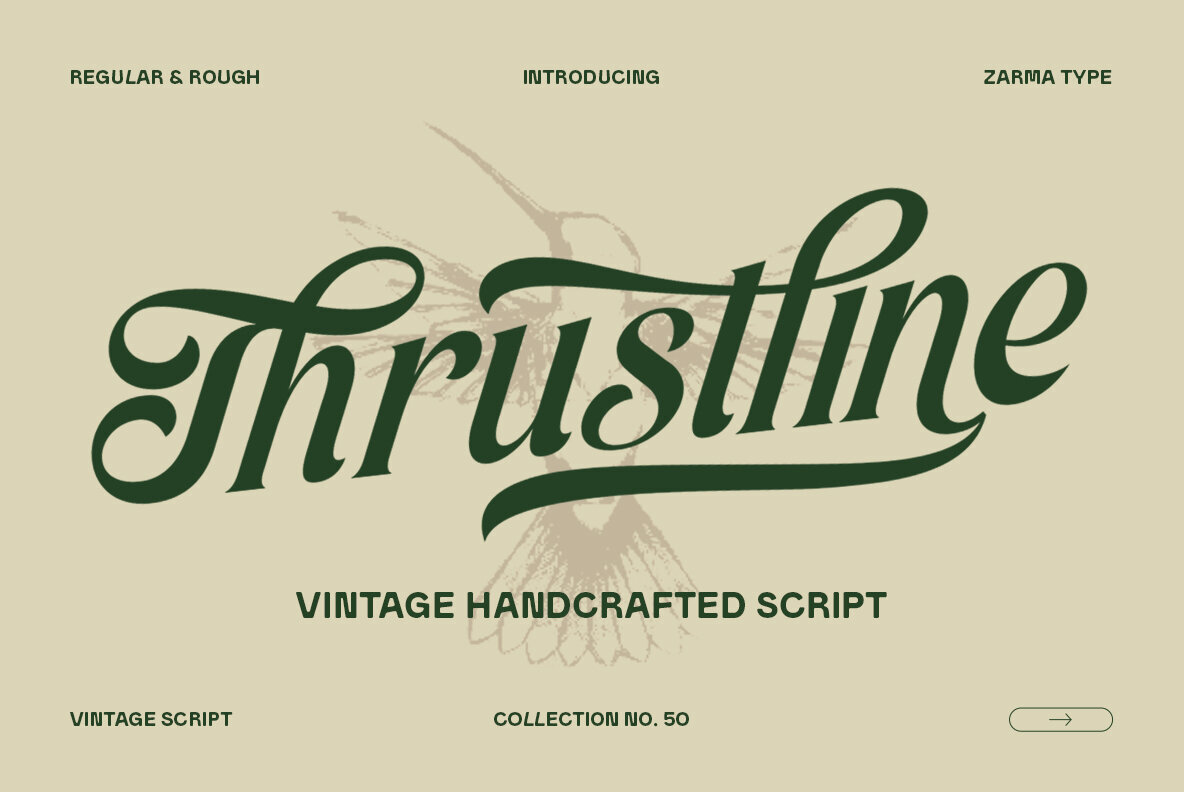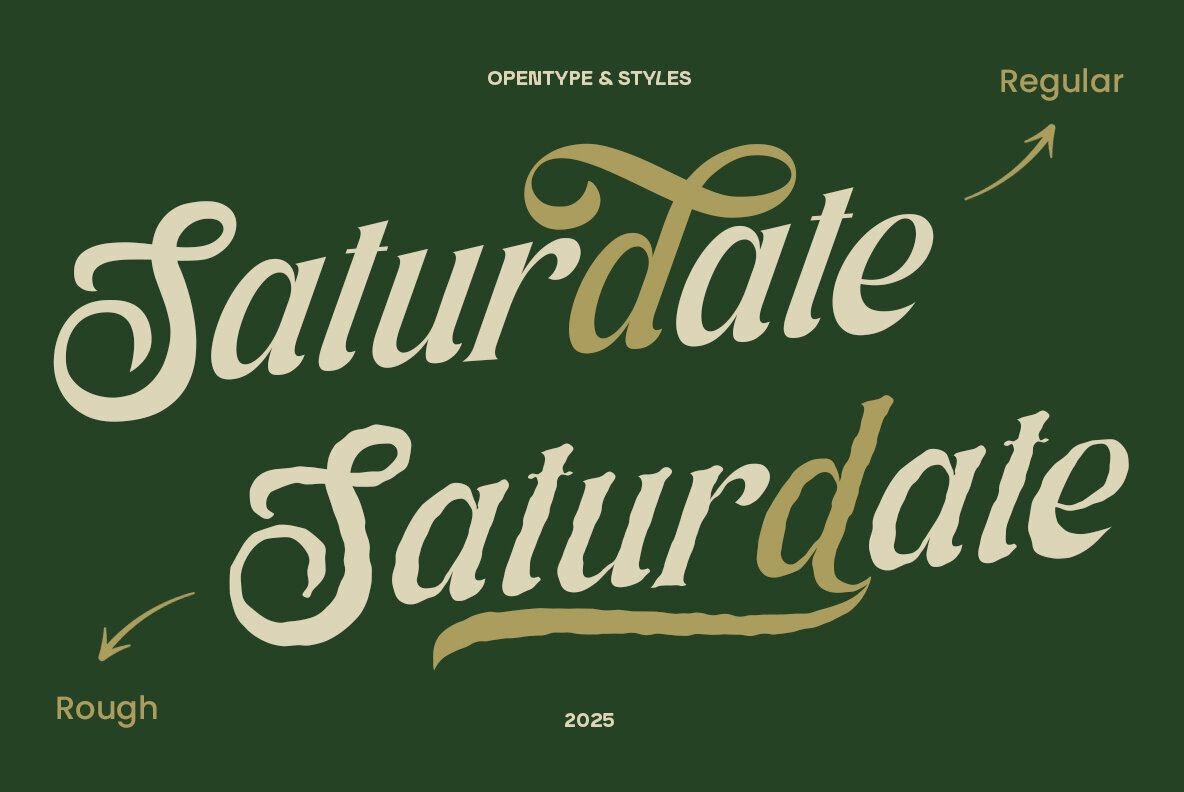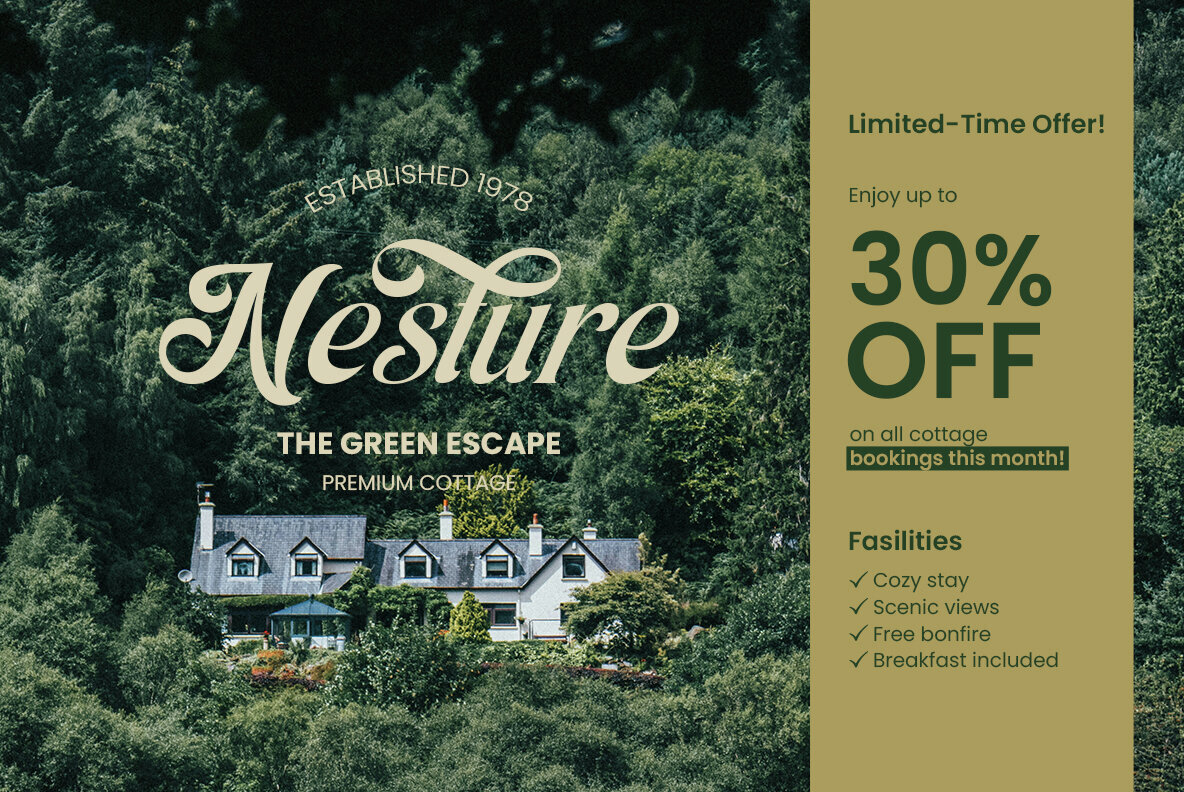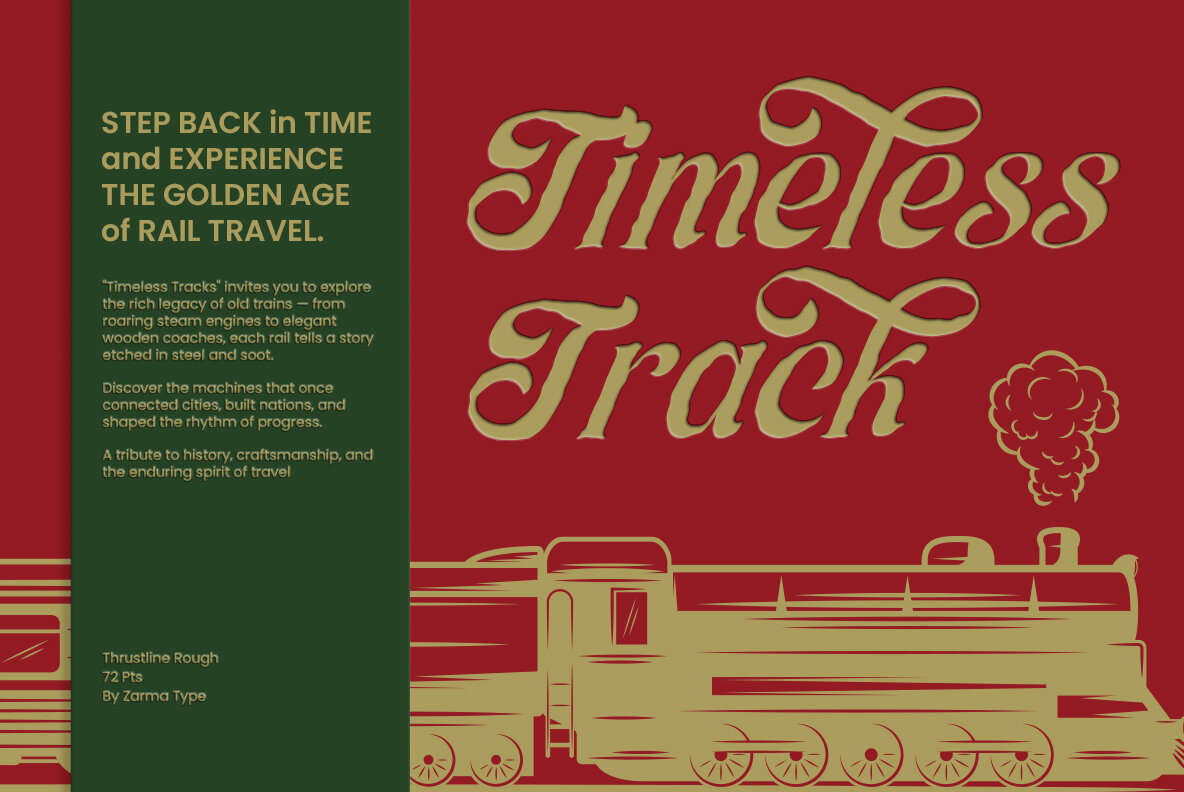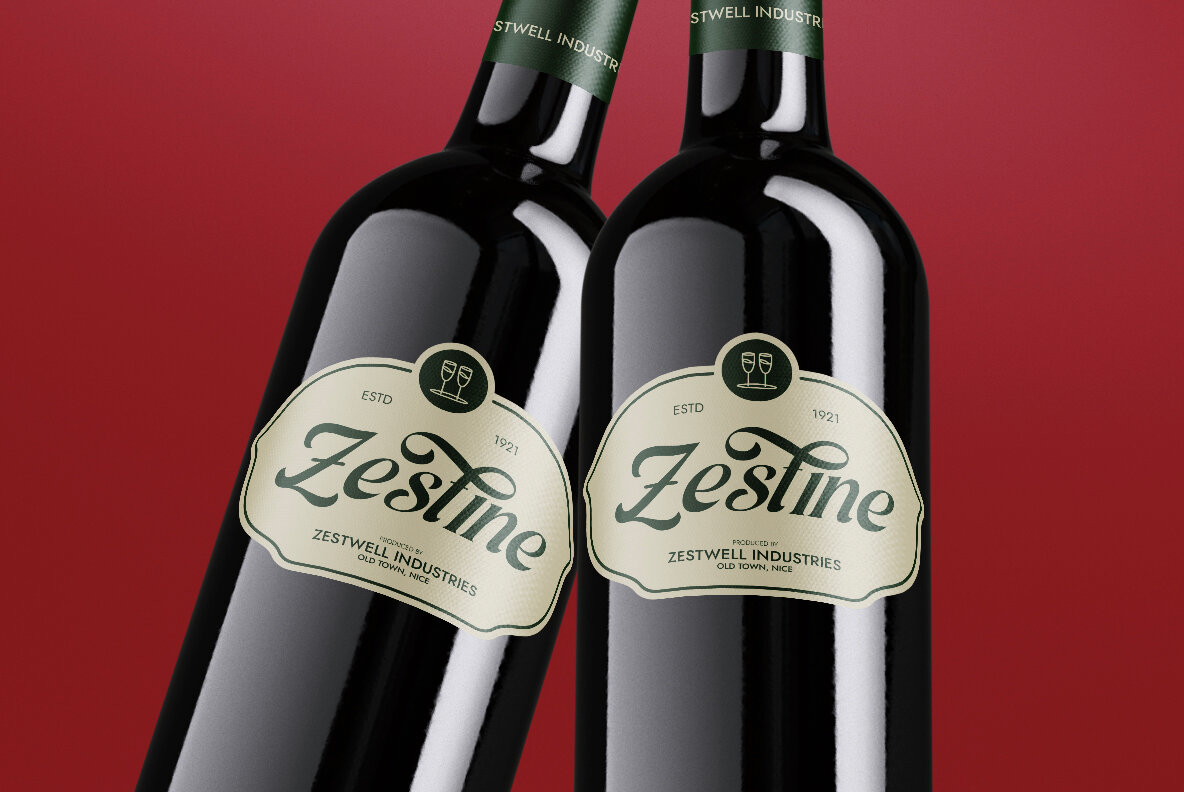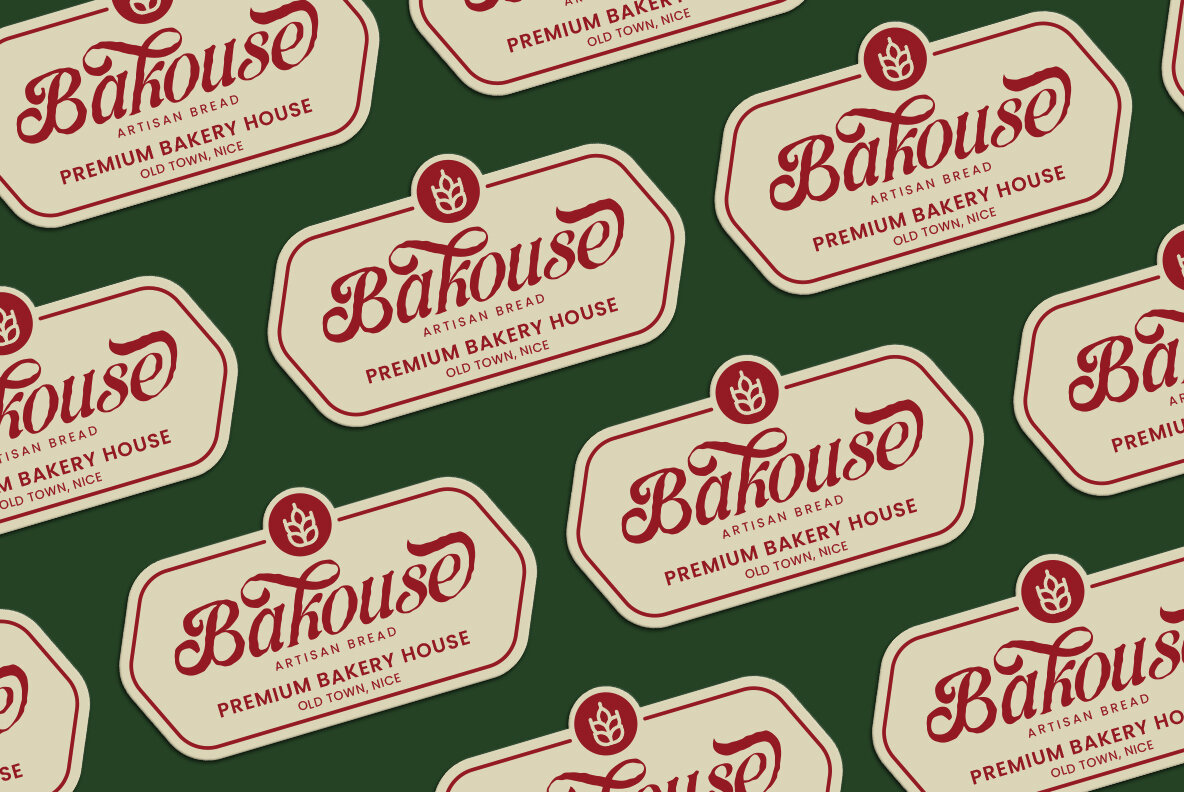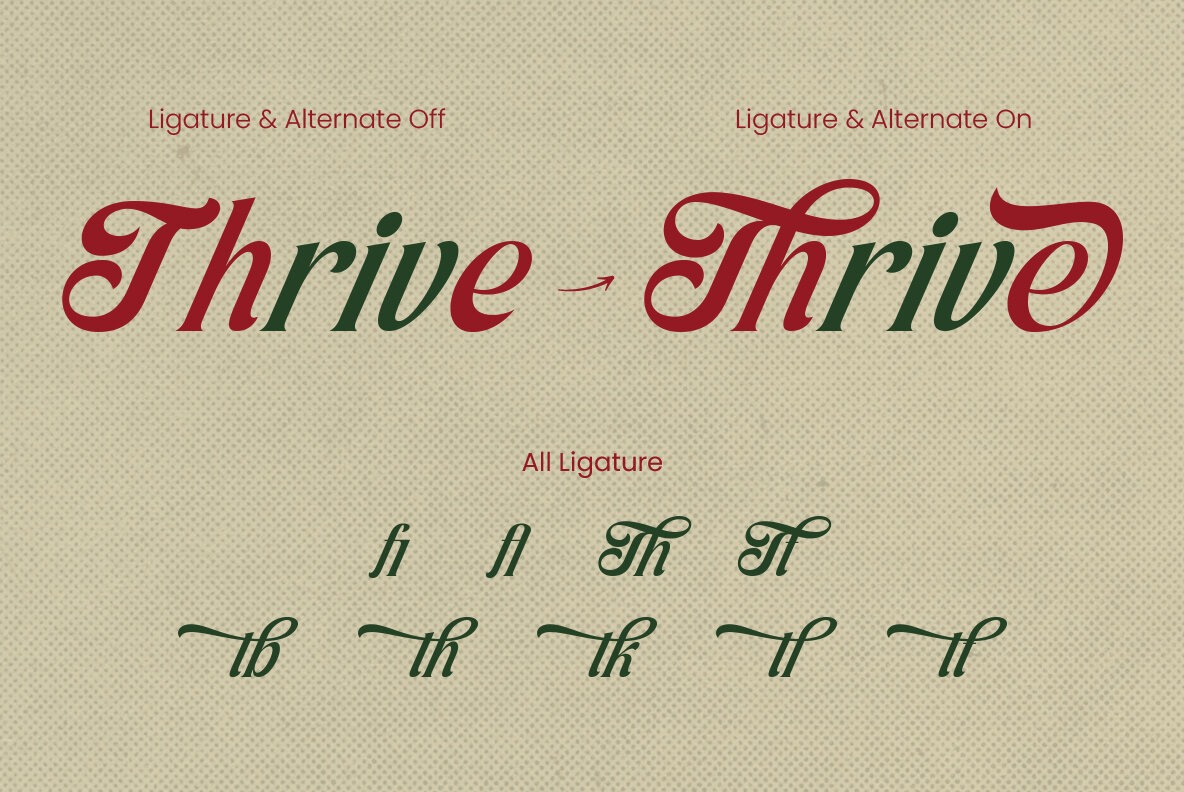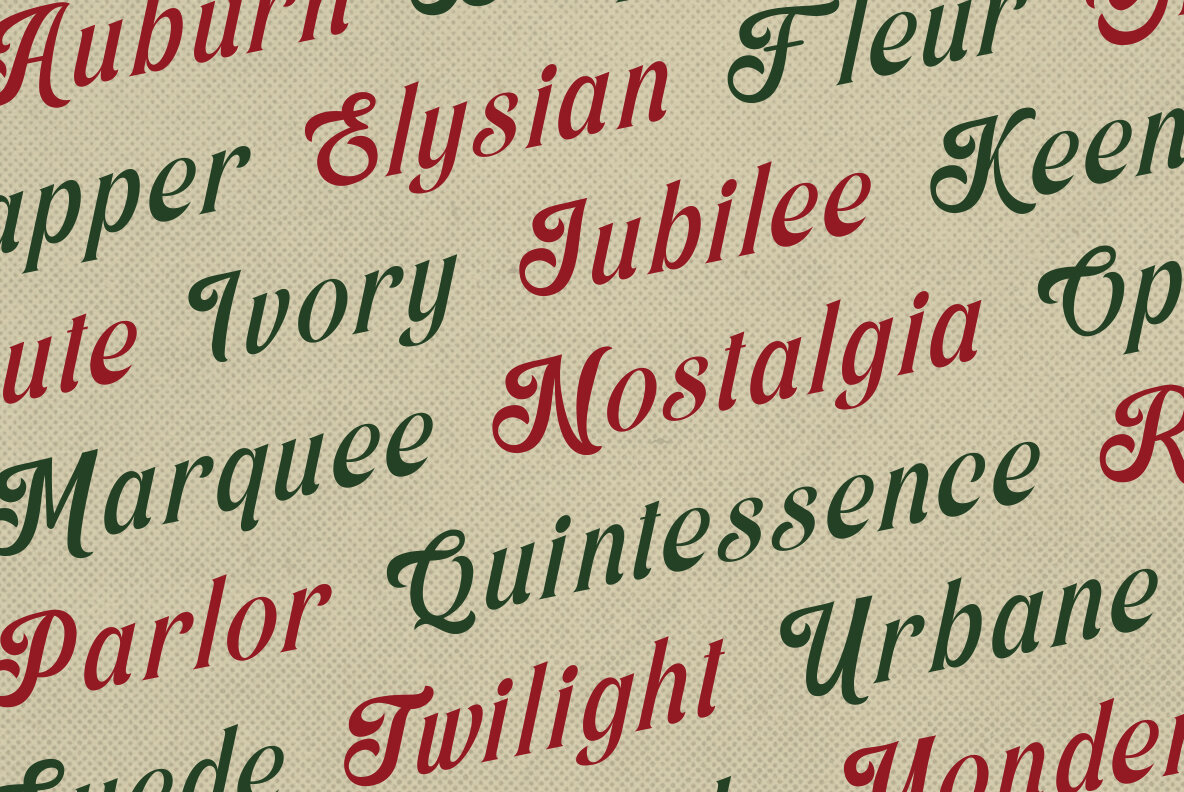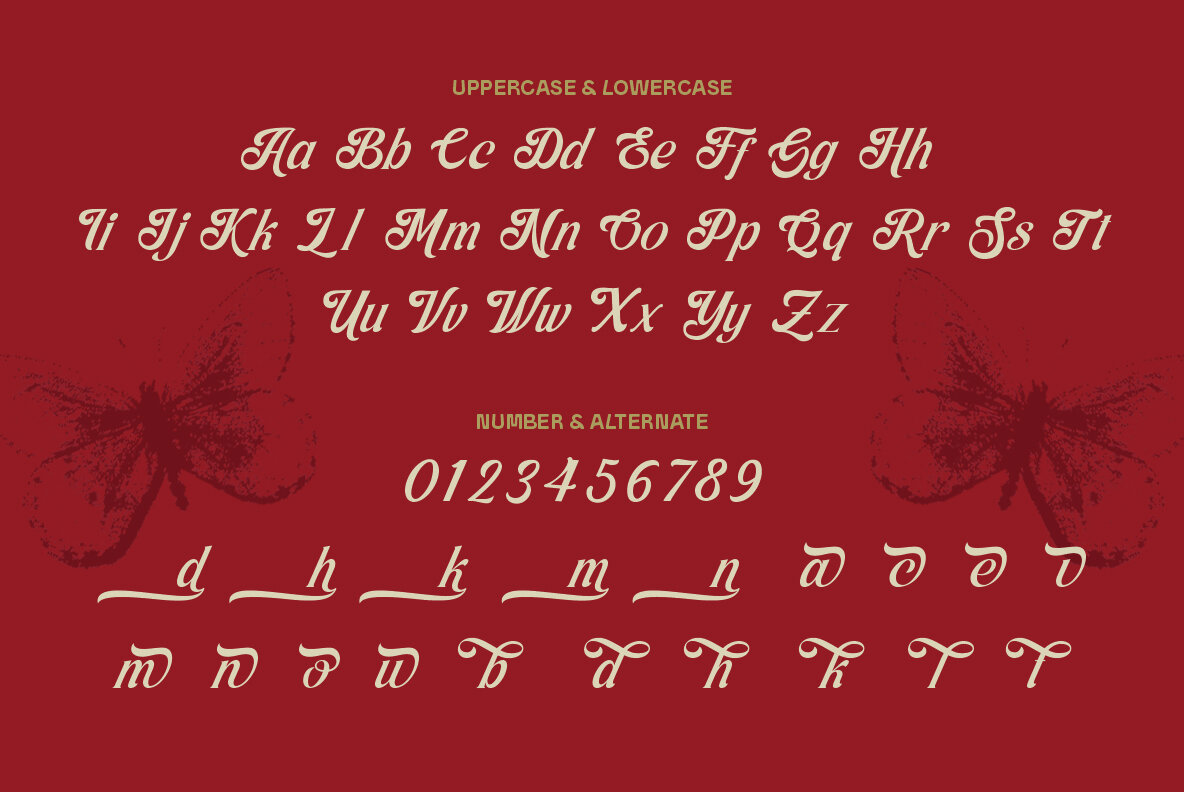
Thrustline Font
Thrustline Regular
Thrustline Rough
Thrustline evokes the golden era of hand-painted signs and crafted lettering. This bold, stylish retro script combines expressive strokes, smooth swashes, and dynamic ligatures, offering a refined touch to contemporary projects. Ideal for applications ranging from vintage wine labels to artisan bakery branding, it merges timeless elegance with handcrafted charm. Features:Thrustline: Vintage Script for Nostalgic Designs
Thrustline is perfect for designers aiming to imbue their work with classic sophistication and distinct flair.